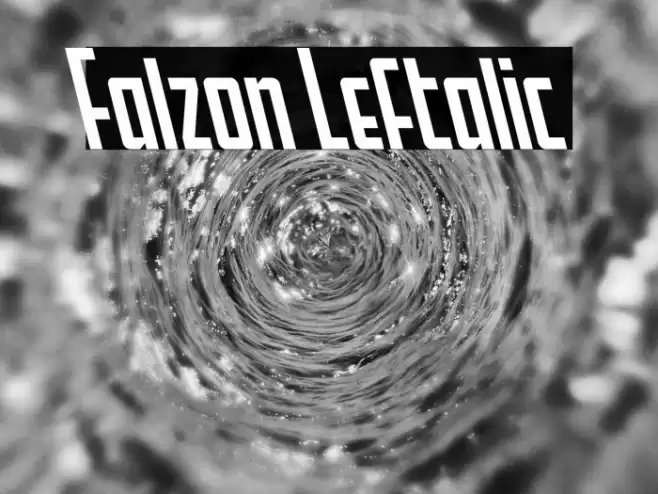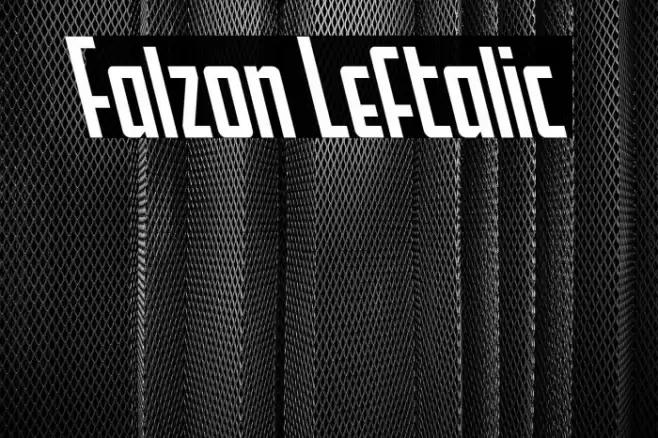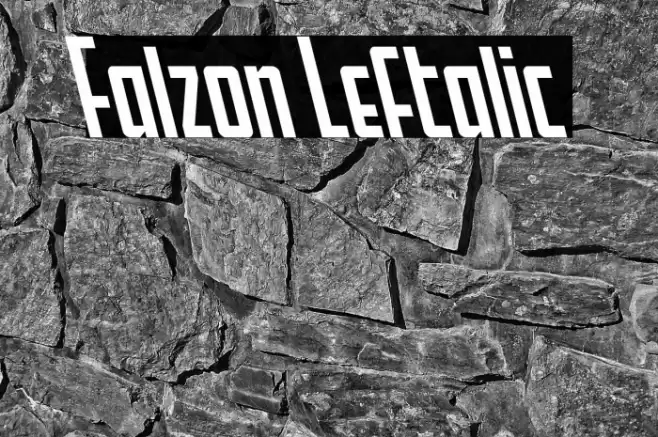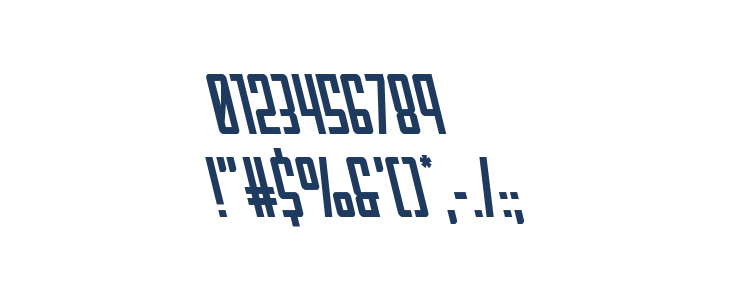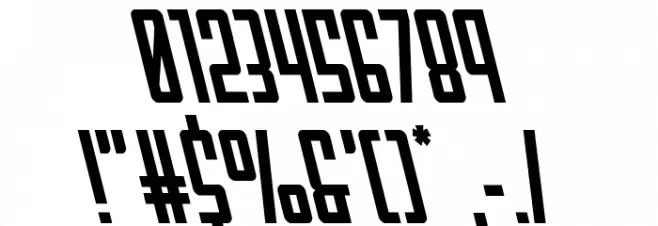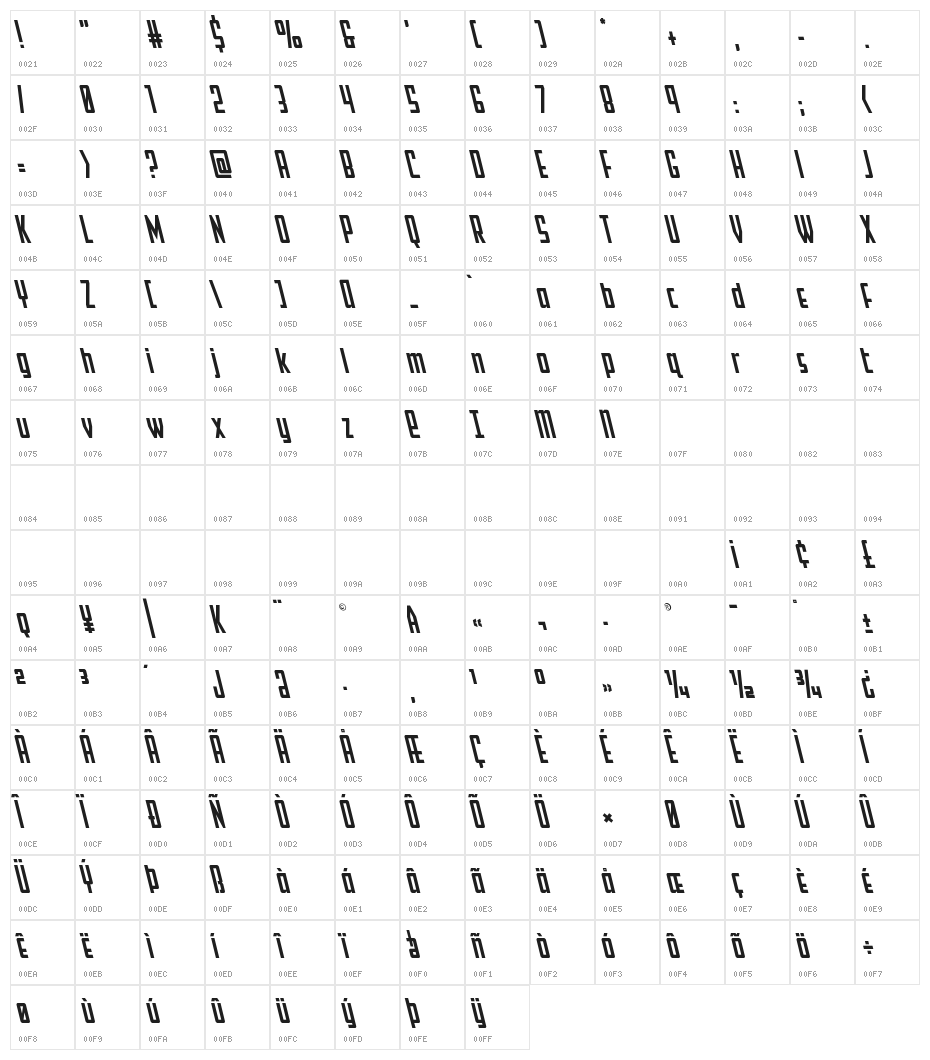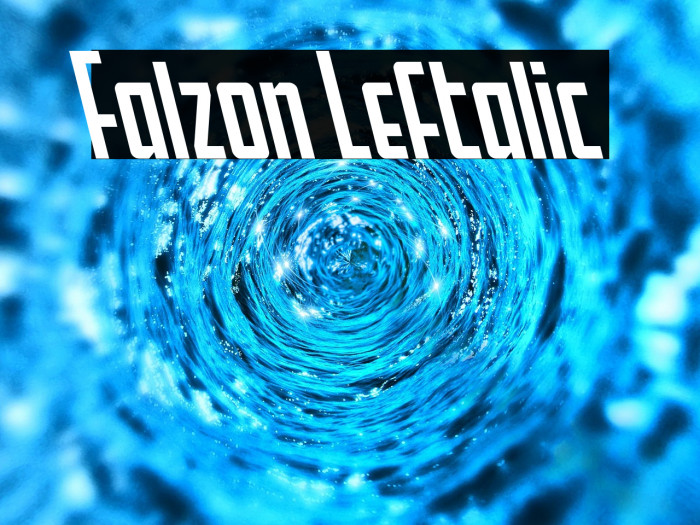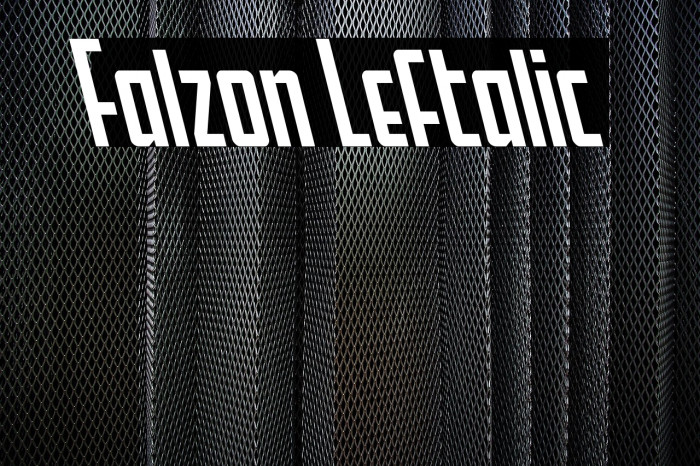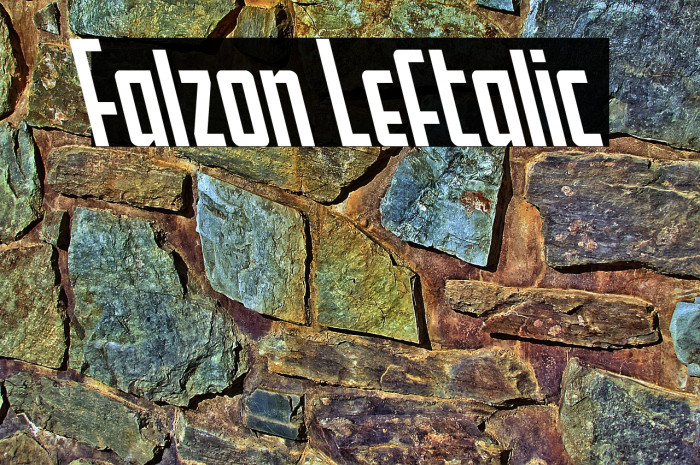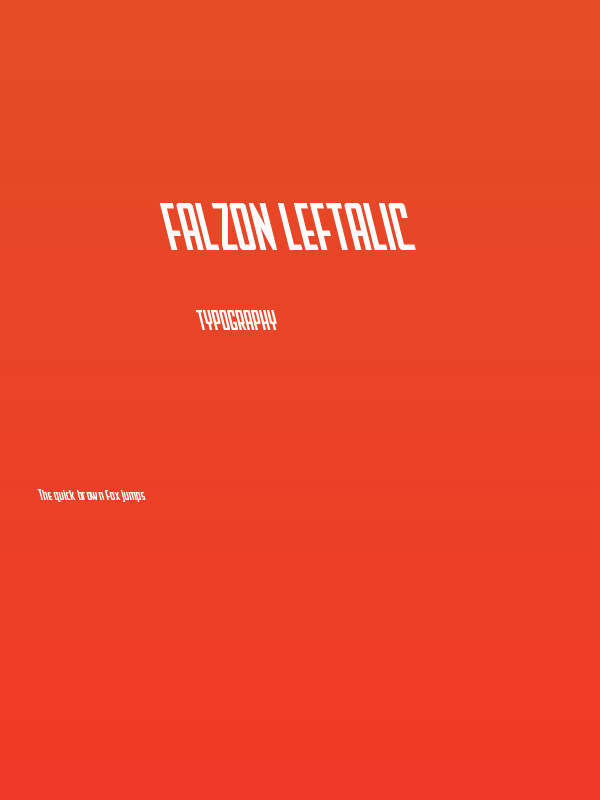
Falzon Leftalic Font
Falzon Leftalic Description
This font features a bold, angular design with a distinct leftward slant, giving it a dynamic and energetic appearance. The characters are tightly spaced, enhancing its compact and impactful look. The uppercase and lowercase letters maintain a consistent style, with sharp edges and a modern flair. Numbers and special characters are designed to match the overall aesthetic, making this font suitable for attention-grabbing headlines and contemporary designs. Its unique style is ideal for projects that require a bold statement.
A bold, angular font with a leftward slant and tight spacing from Uncategorized fonts.
- Font: Falzon Leftalic
- Proposed Projects: Ideal for modern branding, sports team logos, dynamic posters, and edgy magazine covers.
- Character Spacing: Tight